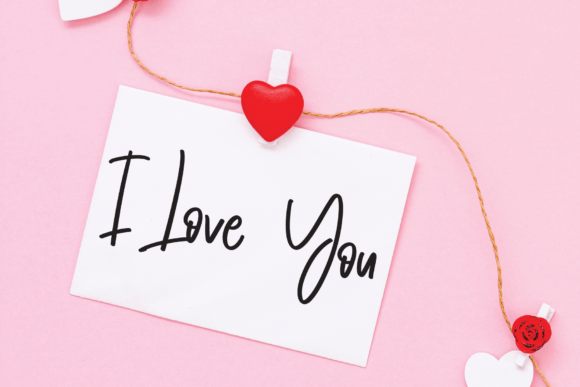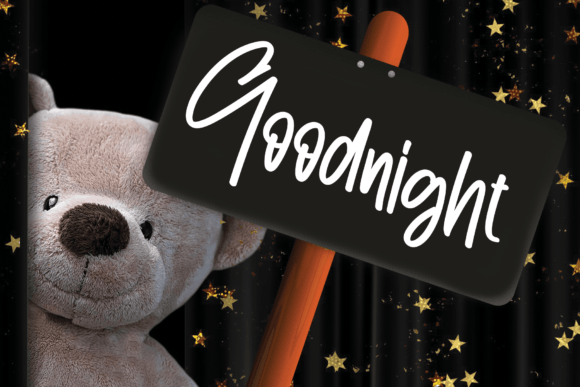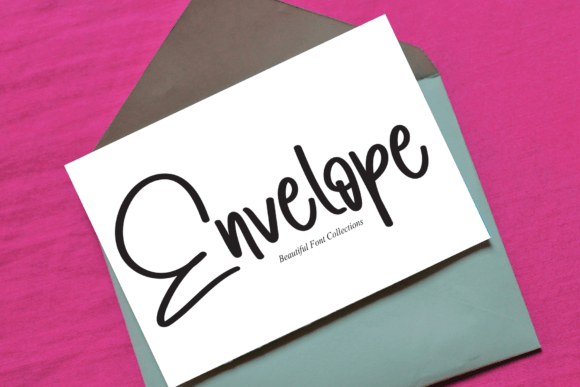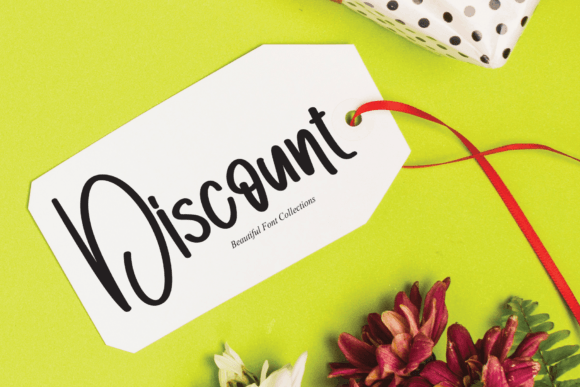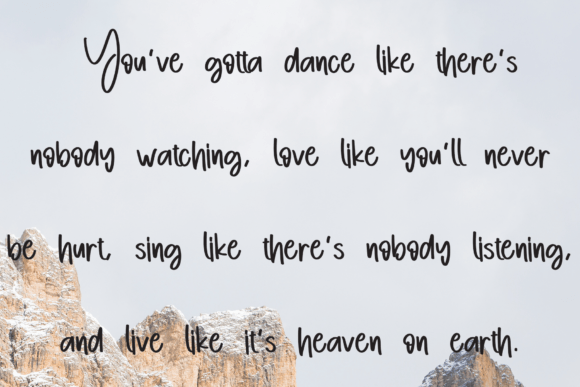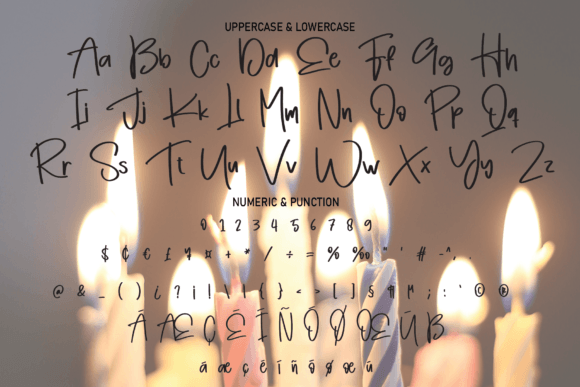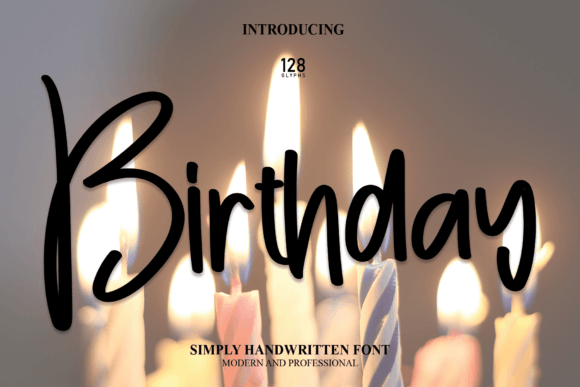
The Birth of a Perfect Font: A Designer’s Love Story with Birthday Font
I still remember the time I was working on a wedding invitation project, and my client asked for a font that was both elegant and playful. I scoured the internet, tried countless fonts, but nothing seemed to fit the bill. That’s when I stumbled upon the Birthday font, and it was love at first sight! 💕
As a designer, I’ve worked with numerous fonts, but Birthday font has been a game-changer for me. Its unique, handwritten touch has been a perfect fit for various projects, from wall displays to social media posts. In this article, I’ll share my experience with Birthday font, its features, and how to make the most of it.
The Good: What I Love About Birthday Font ✨
- Unique, handwritten touch that’s perfect for adding a personal touch to projects ✅
- Versatile and can be used for various design projects, from wedding invitations to product packaging 🎉
- Easy to read and understand, even in smaller font sizes 📚
- Supports OpenType features, glyphs, and stylistic alternates, giving you more creative control 🎨
The Not-So-Good: Small Quirks and Limitations ⚠️
While Birthday font is an excellent choice, there are a few things to keep in mind:
- Some letters, like the lowercase ‘q’ and ‘x’, can be a bit tricky to read in smaller font sizes 🤔
- Limited availability of special characters, such as currency symbols and accented letters ⚠️
The Designer Inspiration Behind Birthday Font
Birthday font was crafted with love by a talented designer who wanted to create a unique, handwritten font that would bring joy to creative projects. With its elegant and playful touch, Birthday font has become a favorite among designers and crafters alike.
Q: Is Birthday font suitable for body text?
A: Birthday font is best used for headings, titles, and short paragraphs, as it may not be the most readable font for longer body text.